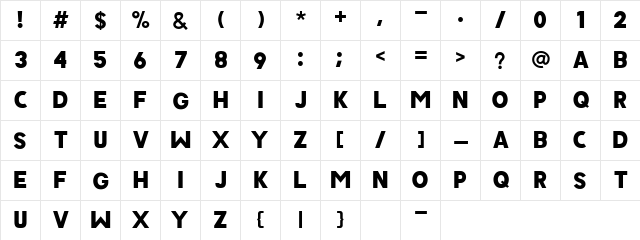
JAVATA Regular
Design Context for JAVATA Typeface
JAVATA takes a measured approach to typography — its balanced proportions and neutral character make it a reliable workhorse for both digital and print work.